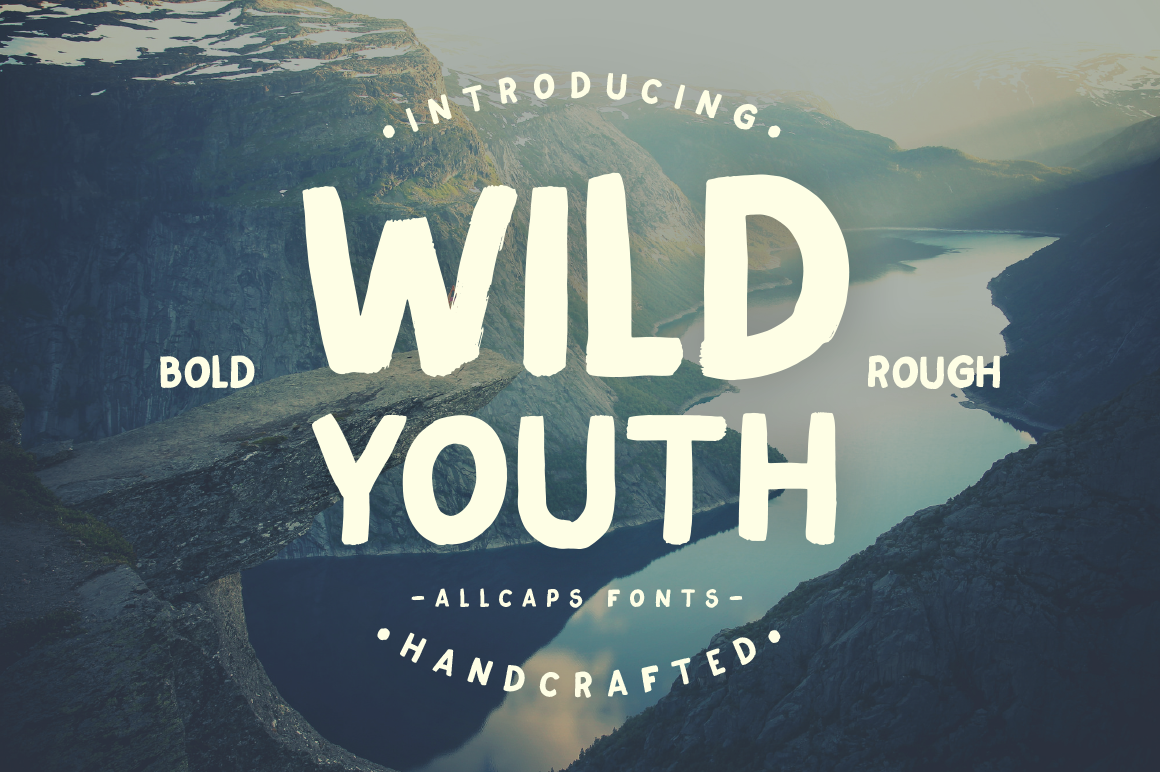
Wild Youth Typeface
Introducing new handmade allcaps fonts WildYouth. Designed with a brush and rough style. You can use this font for various purposes such us poster, t-shirt, headlines, cover design, logo, quotes, and all for display purposes.